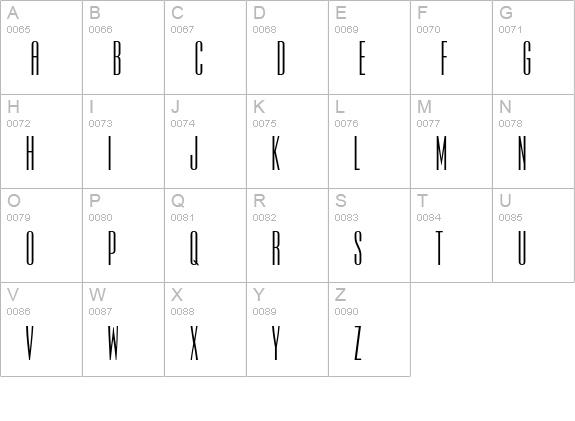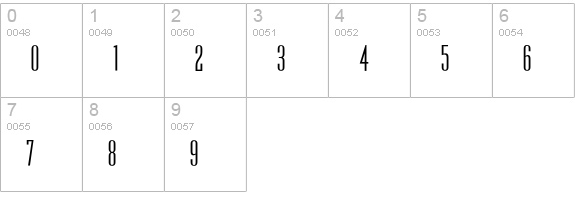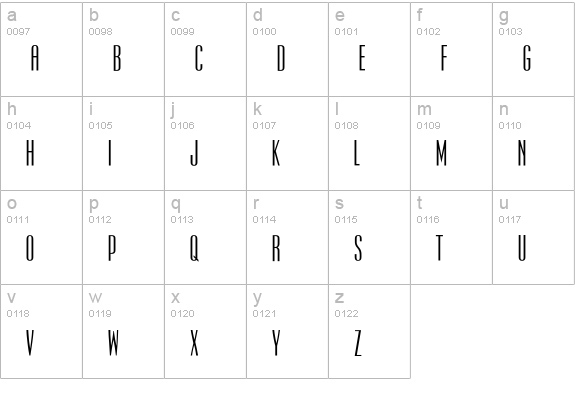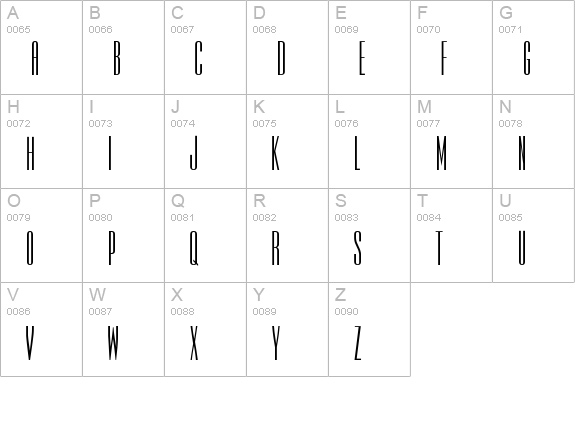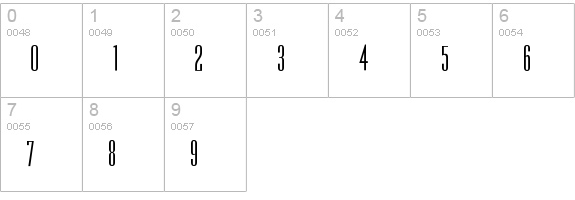
UltraCondensedSansTwo Font Details
UltraCondensedSansTwo is a modern and sleek font that exudes a sense of sophistication and elegance. With its ultra-condensed letterforms, this font is perfect for designs that require a refined and minimalist look. Each letter is carefully crafted with clean lines and sharp edges, creating a professional and sleek aesthetic. This font is not only visually pleasing, but it also offers great versatility. Whether you need it for a logo, headline, or body text, UltraCondensedSansTwo will effortlessly adapt to any design project. Its compact nature allows for maximum space utilization, making it ideal for designs that require a lot of information in a limited space. One of the most appealing aspects of UltraCondensedSansTwo is that it is completely free. Yes, you heard it right, this font can be downloaded at no cost from FontsMarket.com. This means that you can enhance your designs with a high-quality font without having to spend a dime. It is a true gem for designers and typographers who are looking to add a touch of elegance to their projects without breaking the bank. So, whether you are working on a branding project, a print design, or a website, UltraCondensedSansTwo is a font that will undoubtedly elevate your creations. Download it for free at FontsMarket.com and unlock a world of possibilities for your designs.